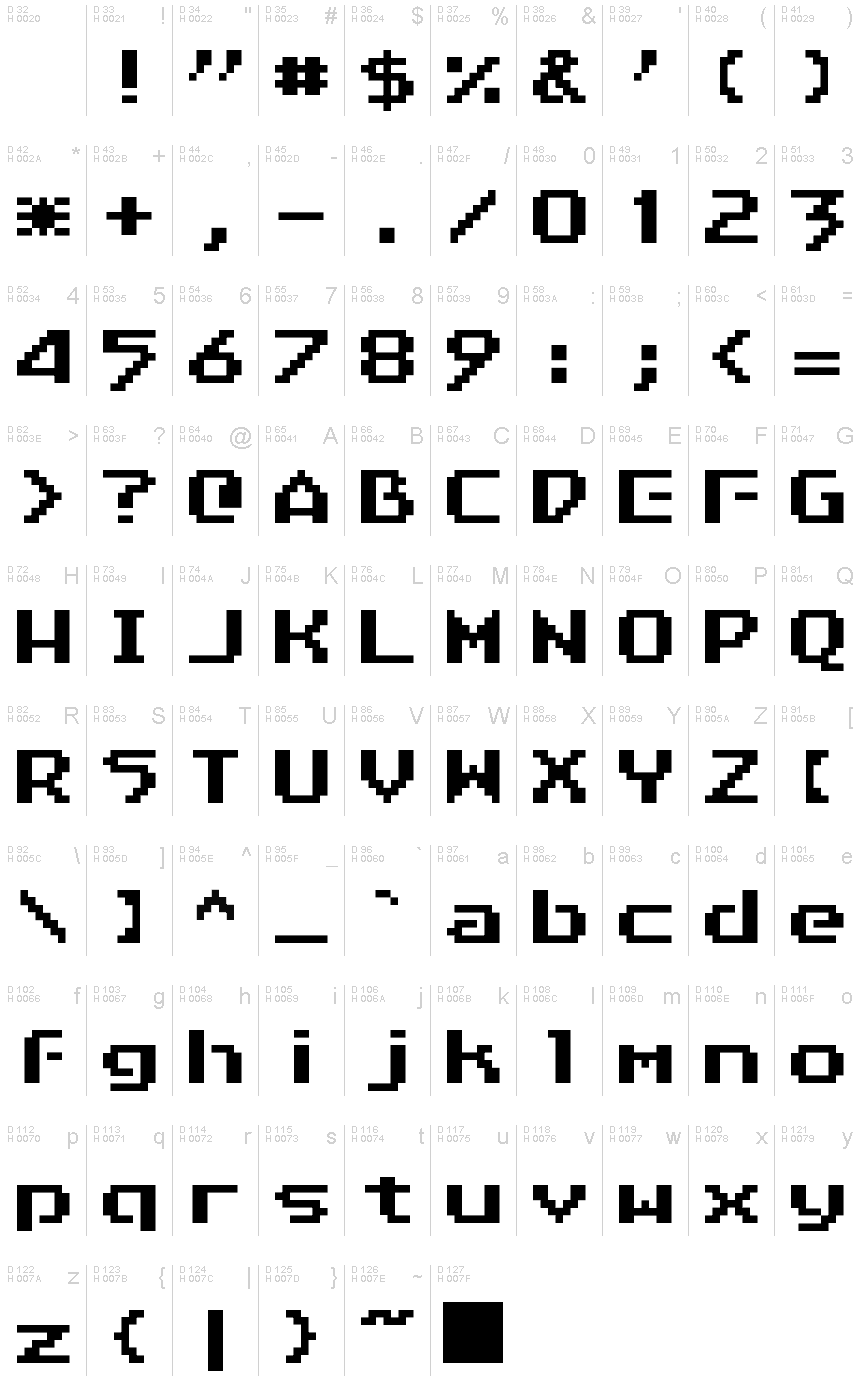
Arcology
Arcology is a futuristic sans-serif pixel font recreation based on the original opening credit and title screen text font appearing in the SNES video game Shadowrun, developed by Beam Software and released by DataEast USA in 1993.
The character set of this font was greatly expanded with countless additional special characters, diacritic variants, unique glyphs and the like, each one of them designed to match the spirit and style of the original font design.
To recreate the original look of the in-game pixel font stick to font sizes that are multiples of 8pt and avoid any anti-aliasing or other font smoothing methods.
377 characters total
Monospaced sans-serif typeface
Countless additional special characters, diacritic variants, etc.
Arcology by Caveras - based on the original title screen and intro text font used in the
Shadowrun video game for the SNES (Beam Software/DataEast USA, 1993).